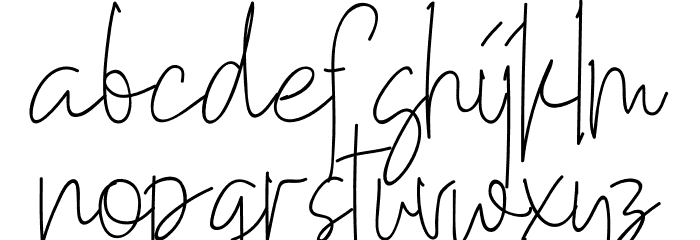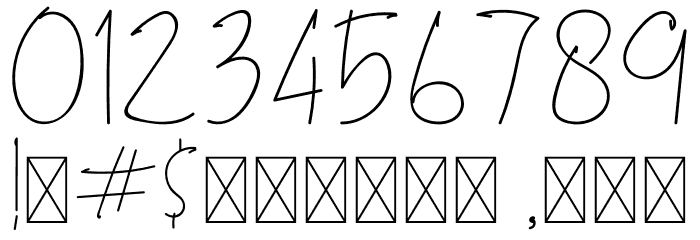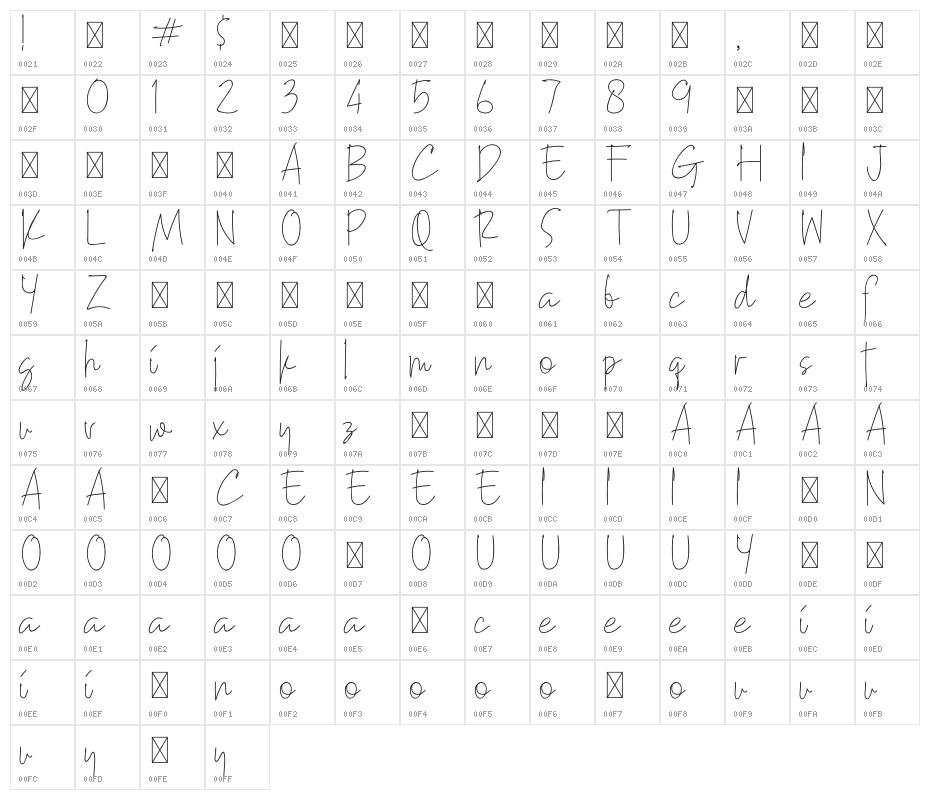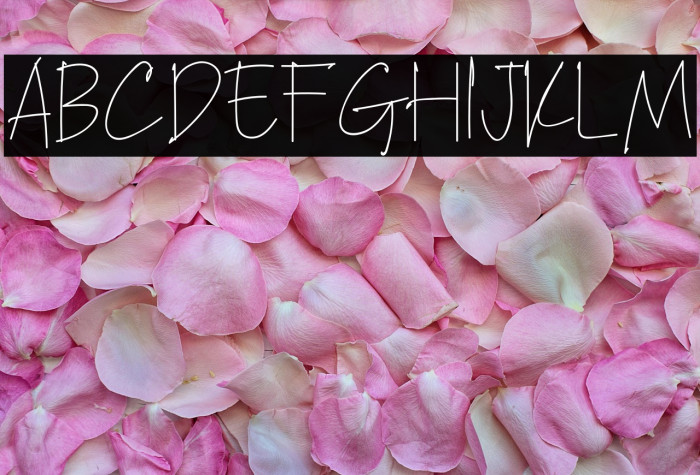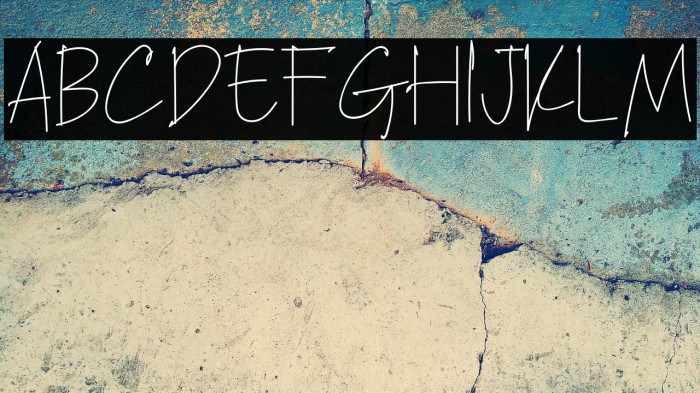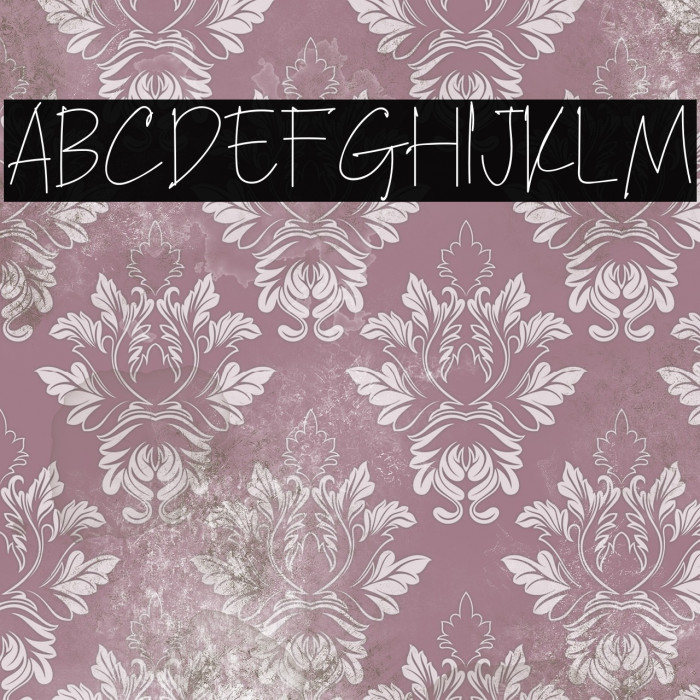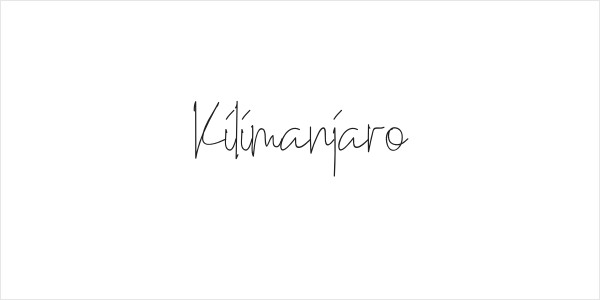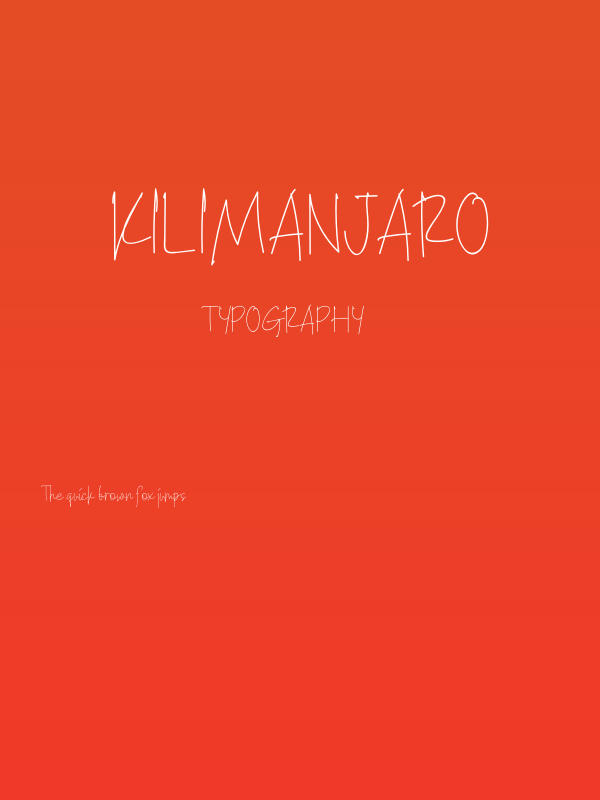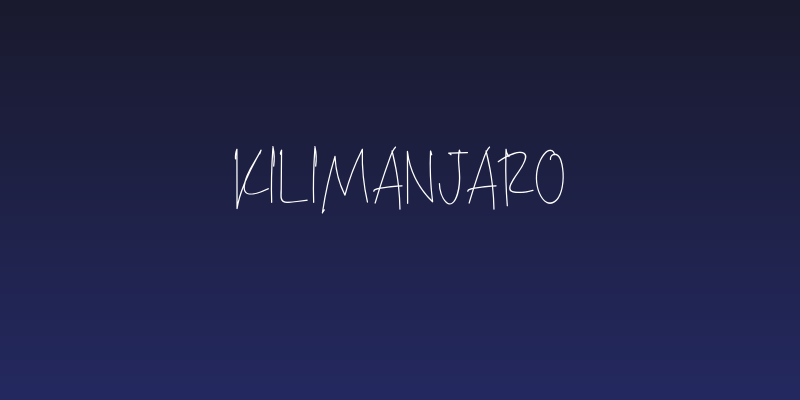
Kilimanjaro Font
This font features a playful and casual handwritten style, characterized by its irregular strokes and organic flow. The uppercase letters are tall and slender, with a slight tilt that adds a dynamic feel. Lowercase letters maintain a consistent style, with some letters extending below the baseline, enhancing the handwritten aesthetic. The numbers are similarly styled, with a quirky, informal appearance. Special characters are integrated seamlessly, maintaining the overall casual vibe. This font exudes a sense of spontaneity and creativity, making it ideal for projects that require a personal touch.
A playful, casual handwritten font with irregular strokes and an organic flow.
- Font: Kilimanjaro
- Proposed Projects: Ideal for greeting cards, personal branding, creative projects, and informal invitations.
- Category: Handwritten
- Overall Style: Casual, Playful
- Use Case: Logos, Headlines, Creative projects